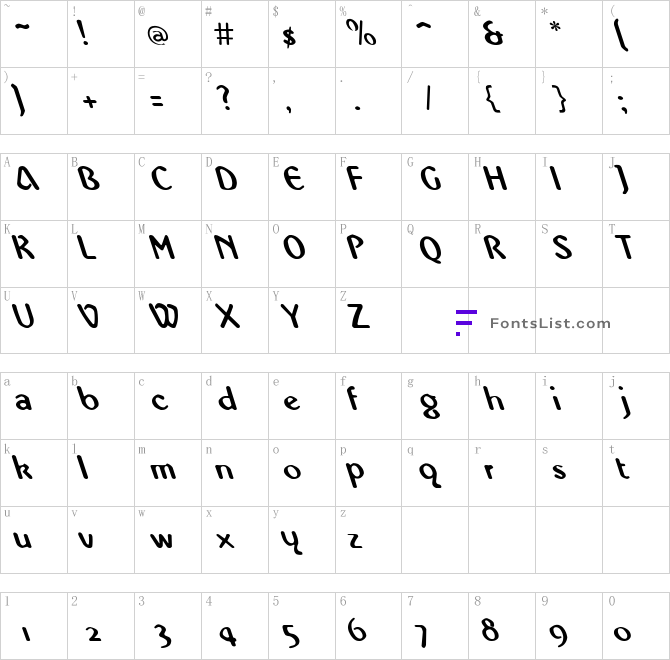
- Font Name:Abbey-Medium Lefty
- Full Name:Abbey Medium Lefty
Abbey-Medium-Lefty.ttf is a very beautiful artistic font, Abbey-Medium-Lefty.ttf is widely used in the design and printing of various books and pictures,Abbey-Medium-Lefty.ttf has a strong visual impact,Abbey-Medium-Lefty.ttf is a commonly used font in newspapers, magazines and books, and is used in posters, e-commerce Poster design, store design, logo design, font design and other fields.Abbey-Medium-Lefty.